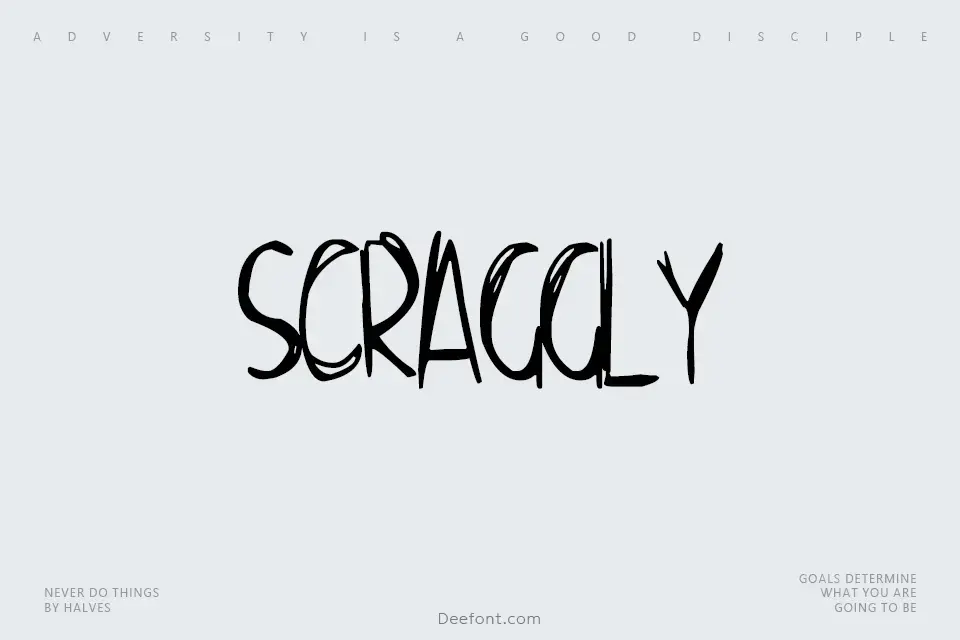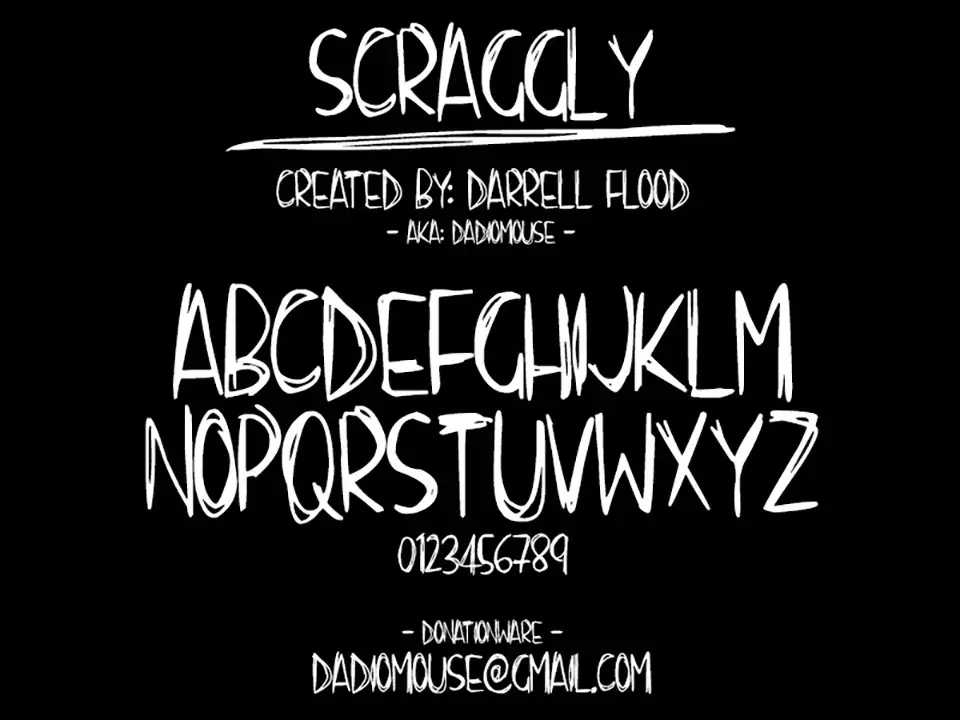
Scraggly Font
The Scraggly font is a chaotic, hand-drawn typeface designed to evoke unease and raw energy. With its jagged edges and uneven strokes, this messy script is ideal for horror movie titles, Halloween party invitations, and grunge-inspired music covers. Its distressed texture adds an authentic, scary vibe to any creative project needing a touch of darkness.